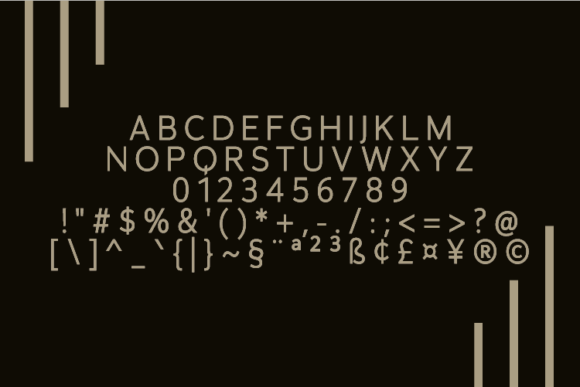
Introduction to Metadorc Font
Metadorc is a simple and casual sans serif font with an undeniably clean feel.
With its neat and beautiful arrangement of letters, this typeface will look outstanding in both formal and non-formal designs .
Metadorc Font offers exceptional quality and versatility, making it a valuable addition to your design toolkit. Whether you’re creating for personal projects or commercial use, Metadorc Font delivers professional results.